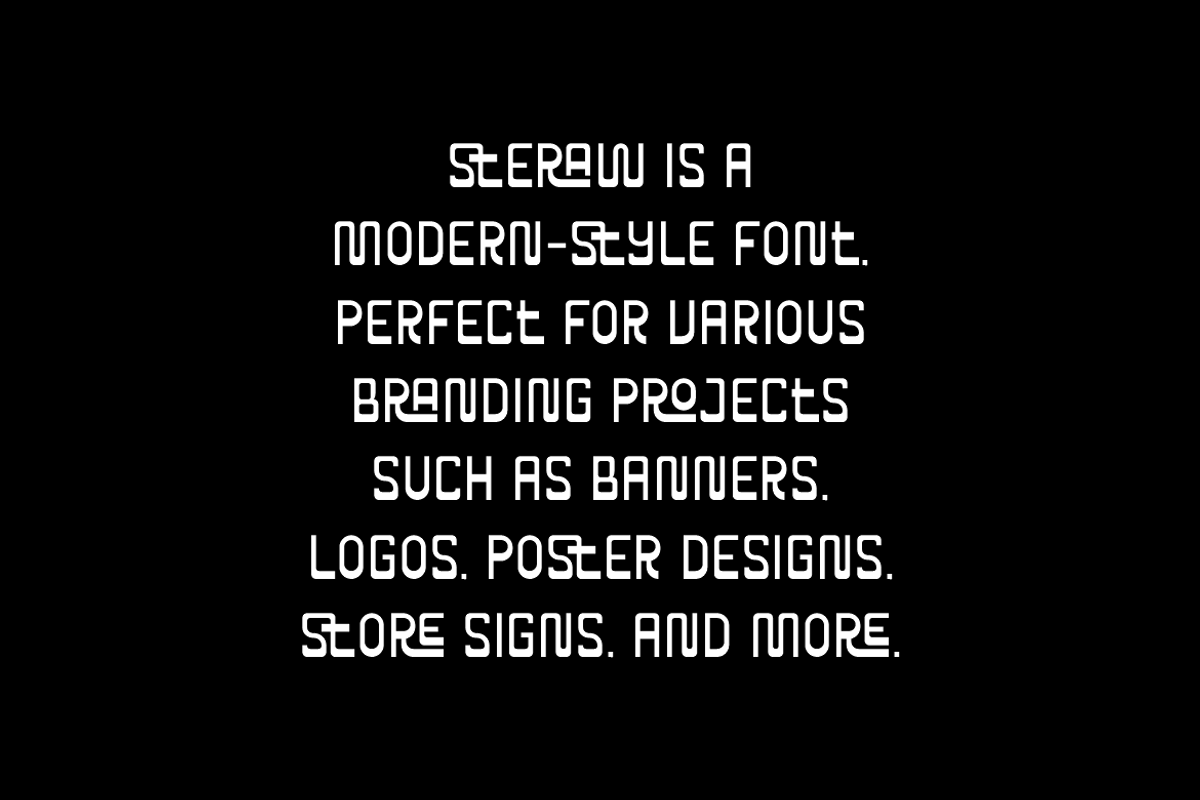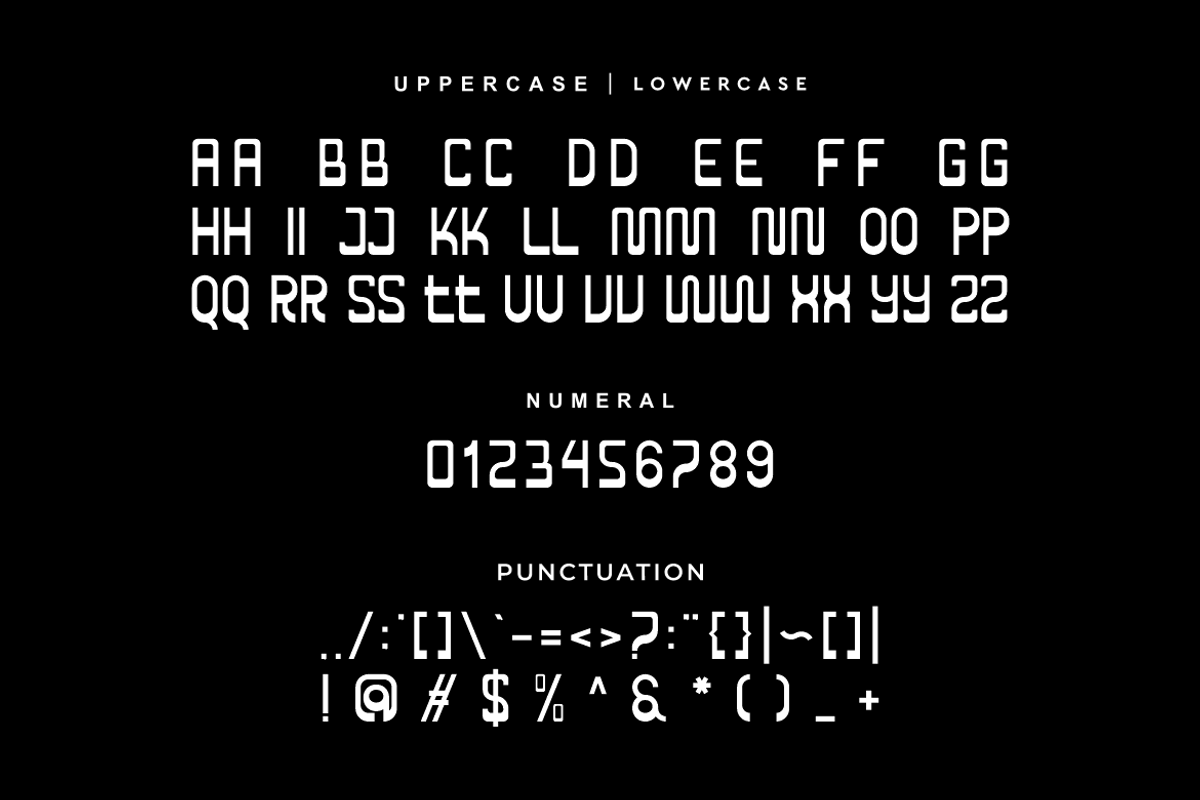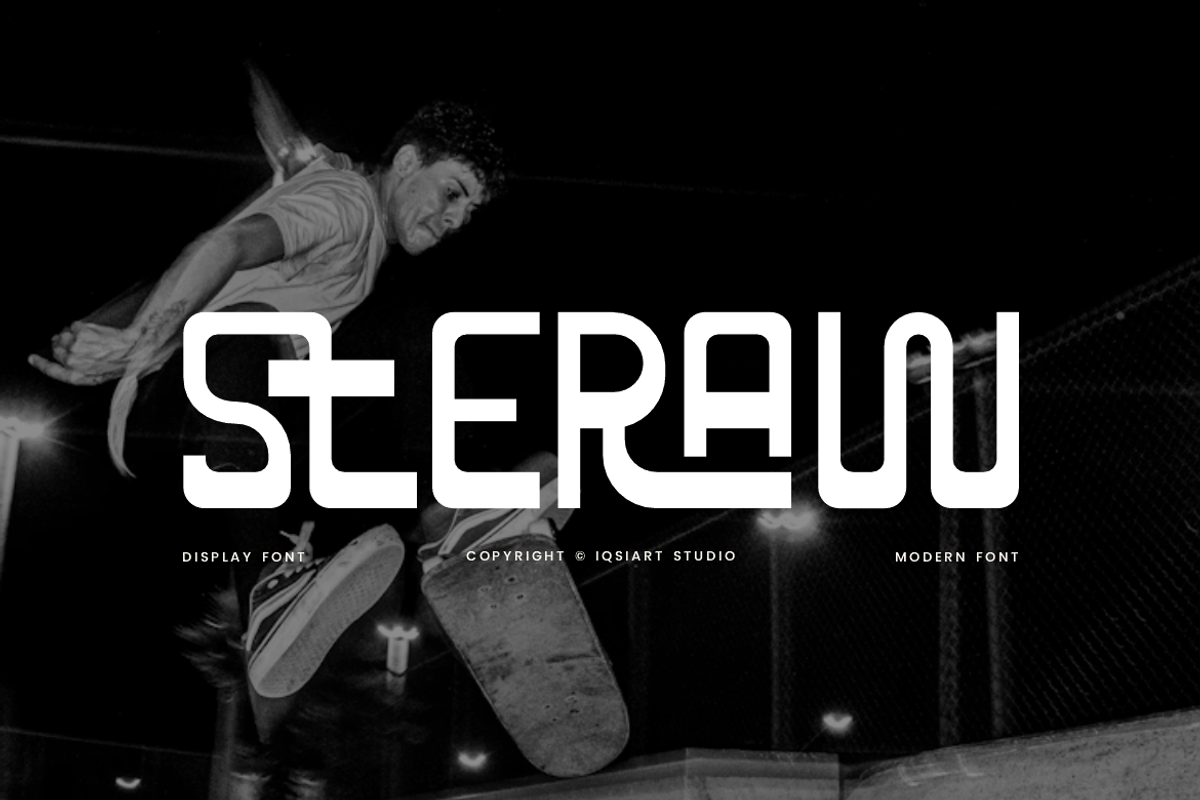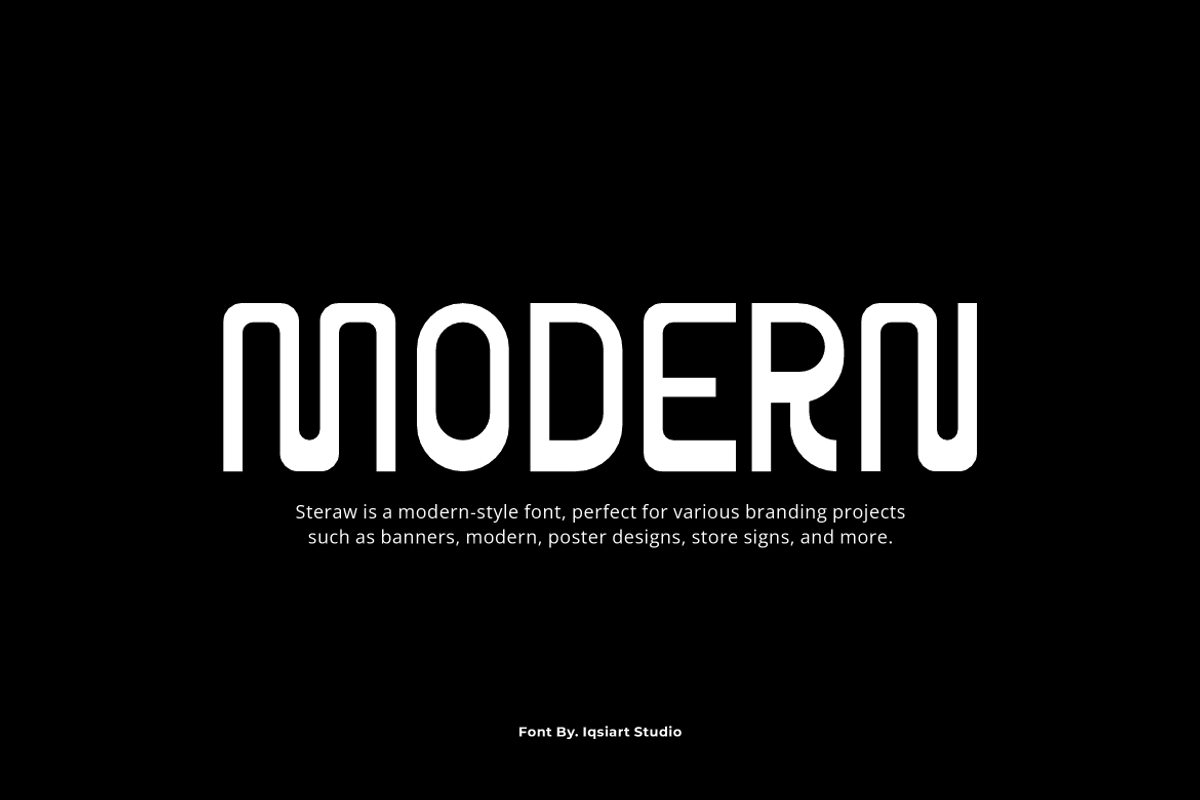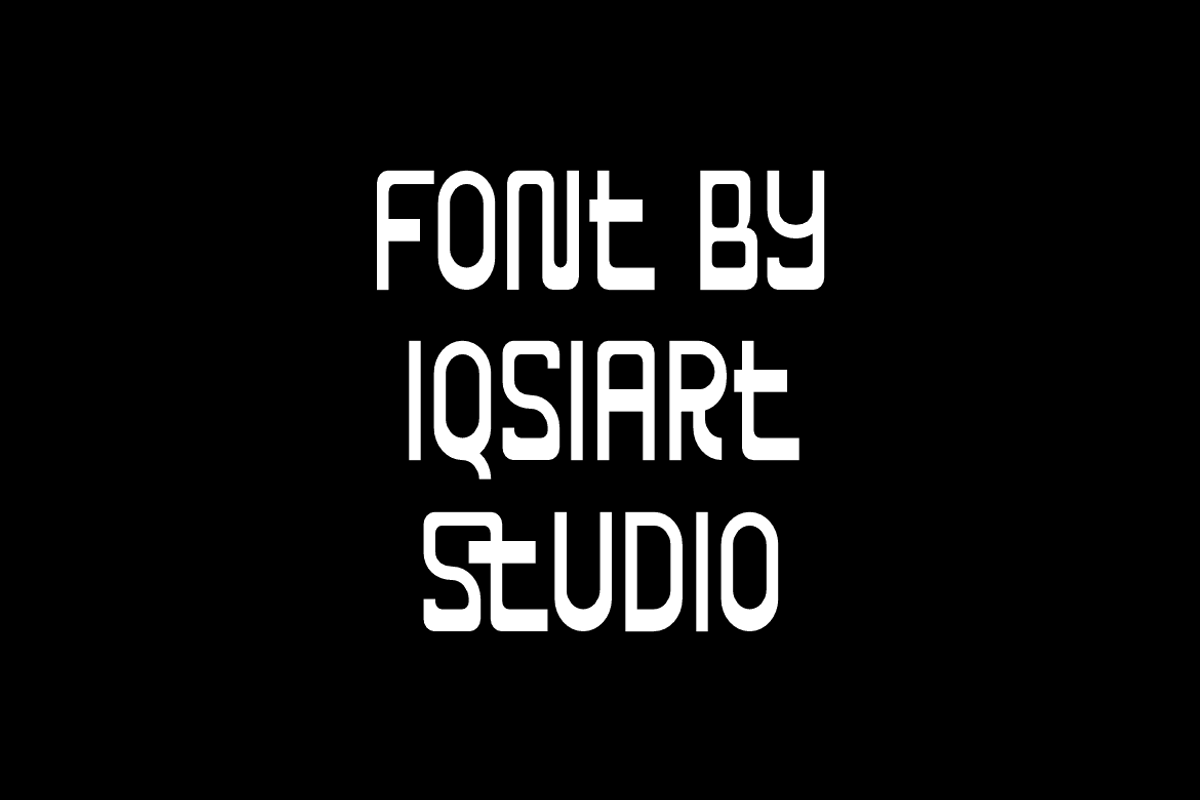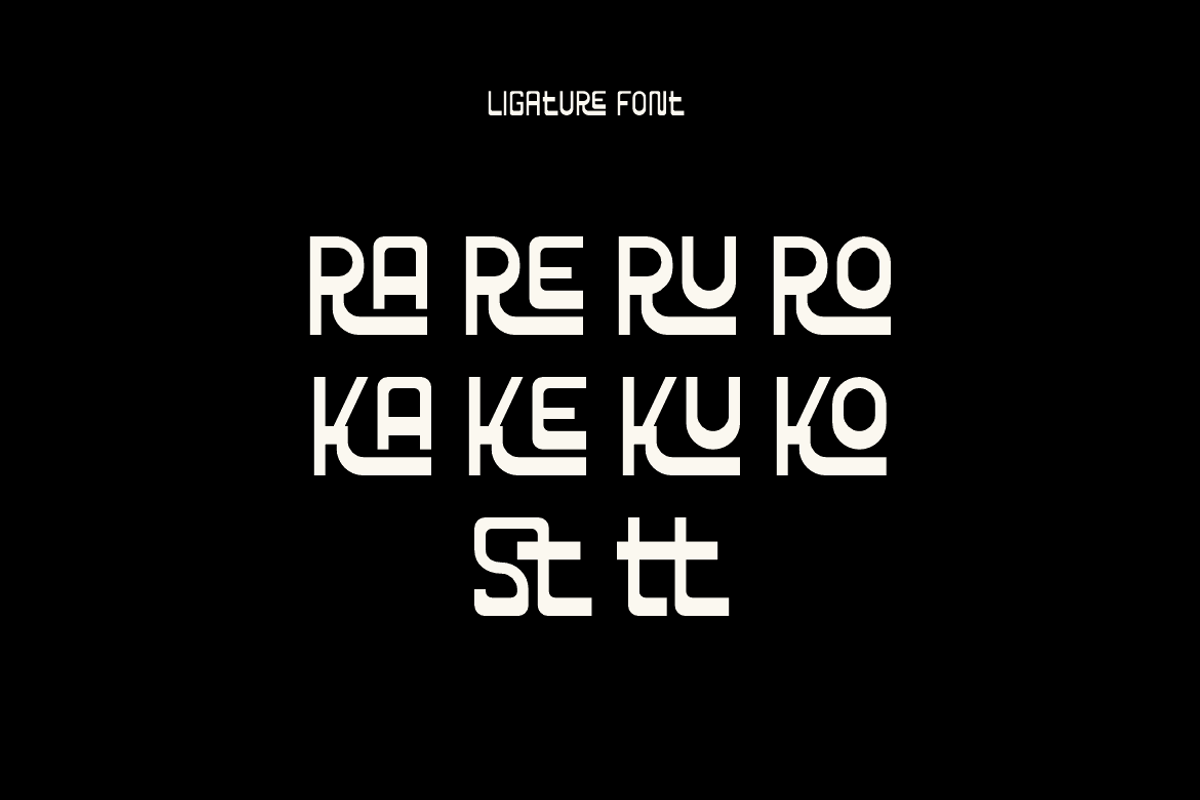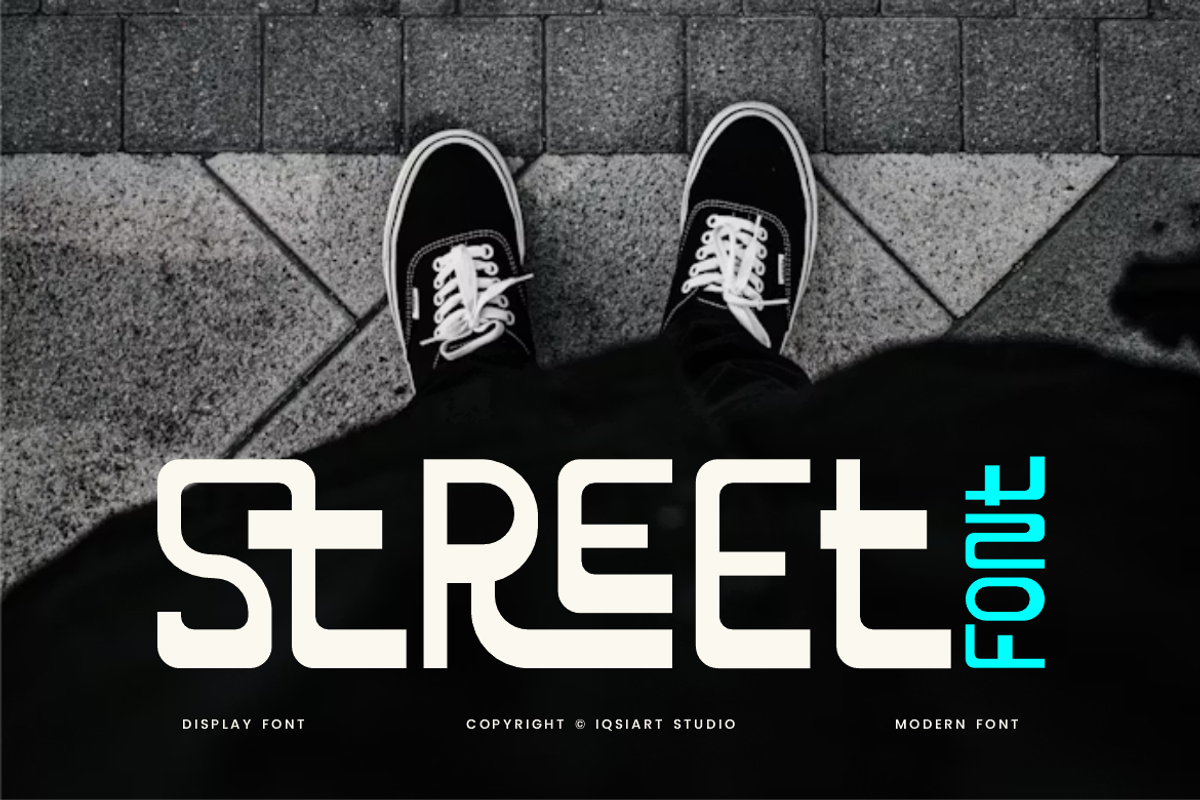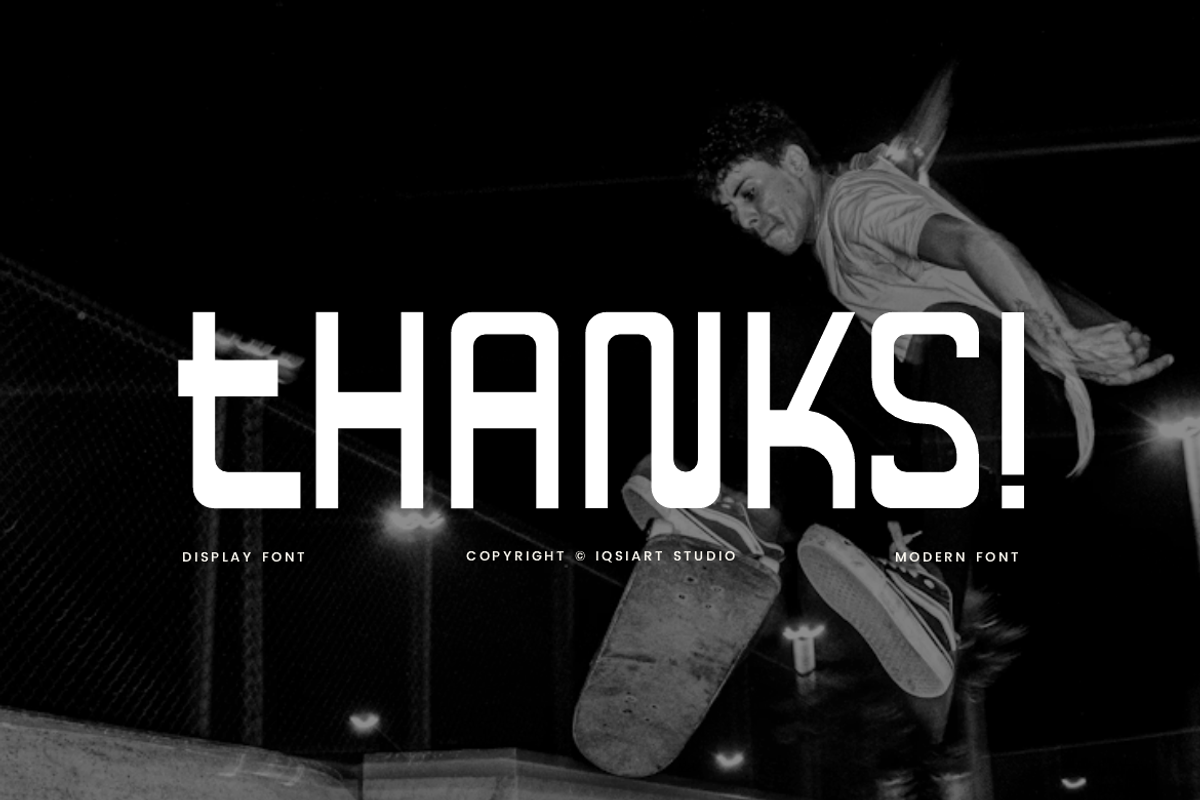
Steraw - Modern Street Font
Steraw Font is a bold and authentic display typeface that suits a variety of design needs. We offer a wide range of themes and font styles — visit our profile to explore more and find the perfect style for your project.